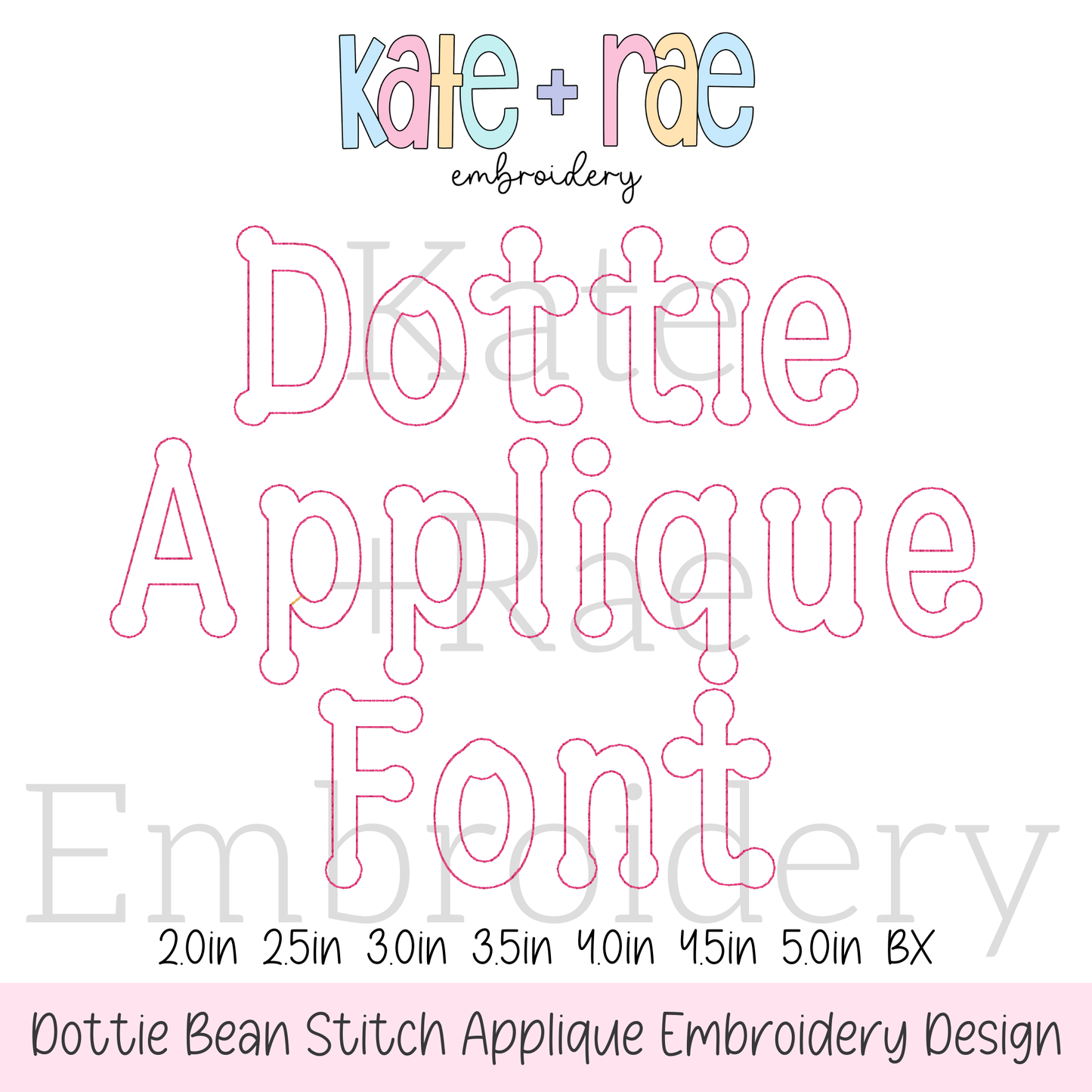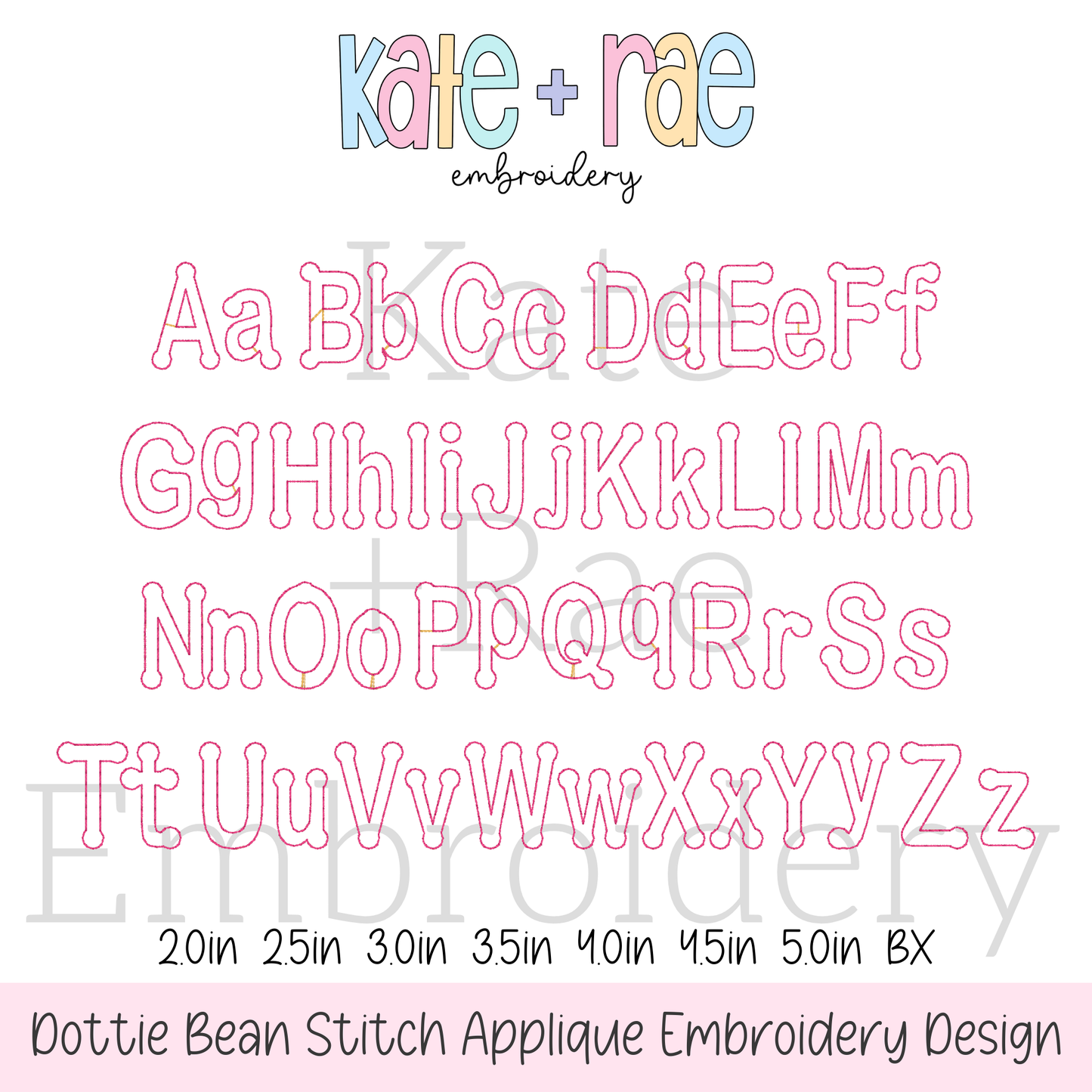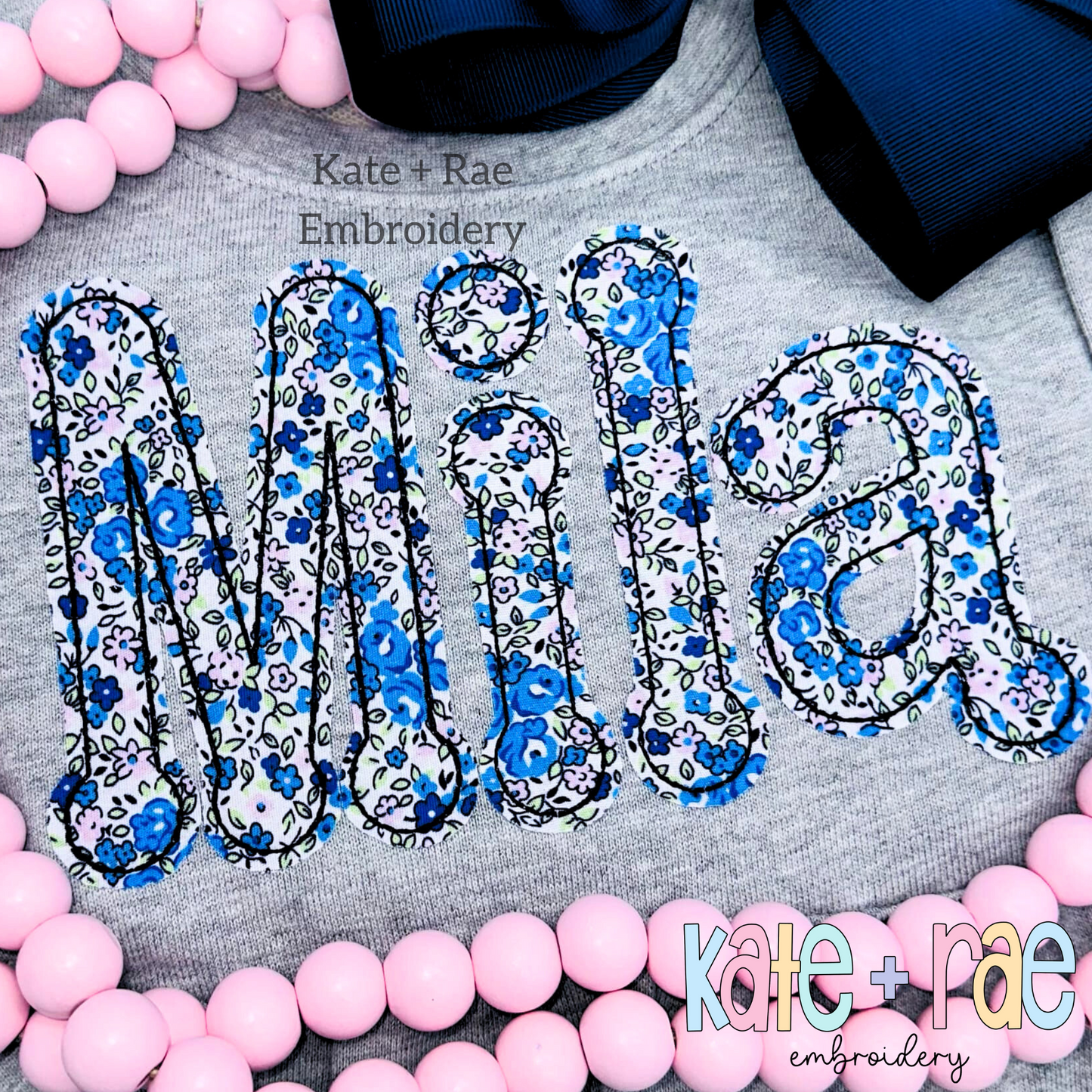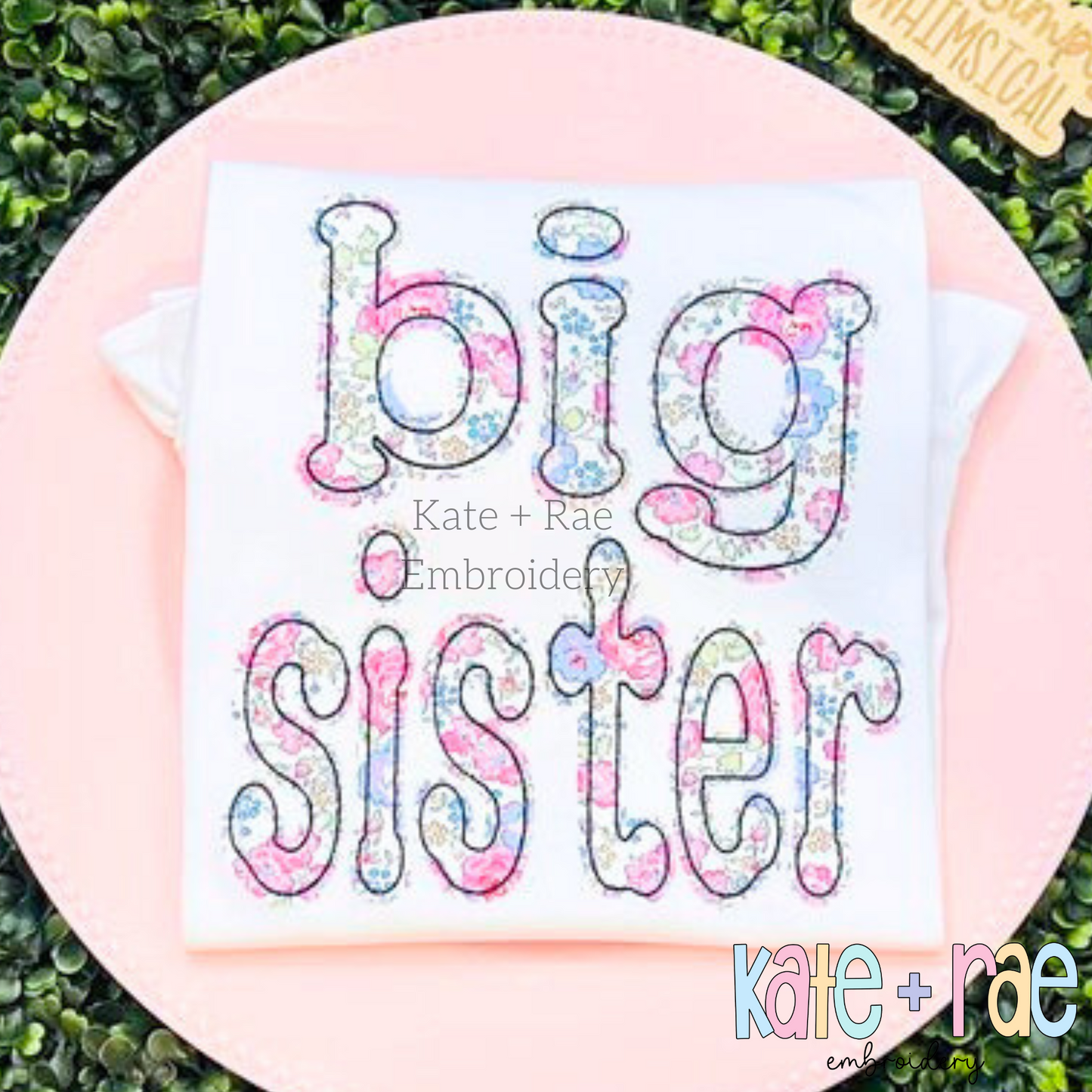
Dottie Bean Stitch Applique Font Embroidery Design
Meet Dottie, a playful bean stitch applique font! Personalize names, monograms, sweatshirts, and kids' outfits.